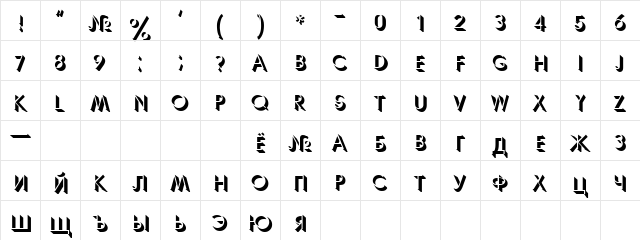
DG_Unbra Normal
Design Context for DG_Unbra Typeface
DG_Unbra is a composed and adaptable typeface that performs quietly and consistently across a wide range of design contexts.